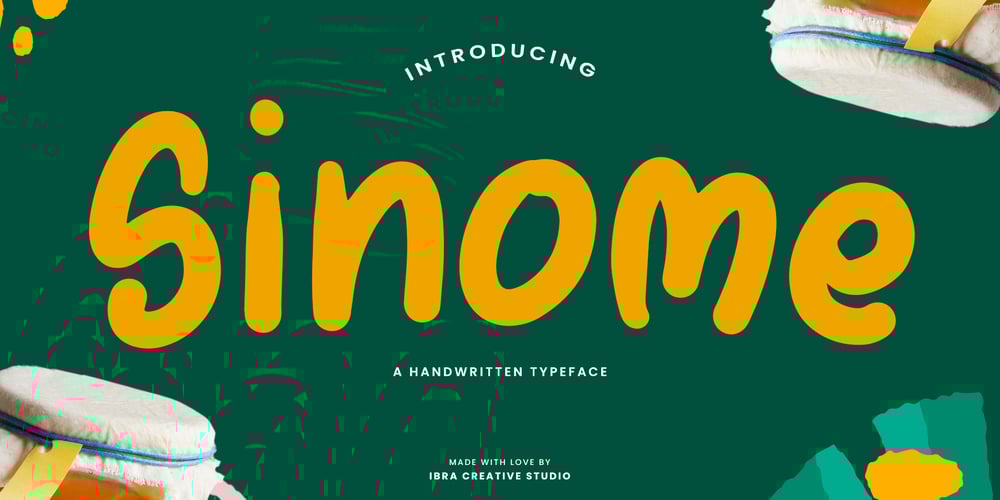
Sinome Font Family was designed by Roisatul Azizah and published by IbraCreative. Sinome contains 1 styles and family package options. Sinome – A Cute Handwritten TypefaceSinome, an enchanting handwritten typeface, radiates a delightful charm with its whimsical strokes and endearing curves. Crafted with a touch of innocence, each letter dances across the page, embodying a playful spirit that adds a dose of sweetness to any design. The cute, hand-drawn quality of Sinome captures the essence of childlike wonder and spontaneity, making it an ideal choice for projects that seek to evoke a sense of warmth, friendliness, and approachability. Whether adorning invitations, crafting adorable logos, or infusing a touch of whimsy into creative endeavors, Sinome stands as a testament to the joy found in the simplicity of handwritten expressions. Sinome is perfect for branding projects, logo, wedding designs, social media posts, advertisements, product packaging, product designs, label, photography, watermark, invitation, stationery, game, fashion and any projects.Fonts include multilingual support for; Afrikaans, Albanian, Czech, Danish, Dutch, English, Estonian, Finnish, French, German, Hungarian, Italian, Latvian, Lithuanian, Norwegian, Polish, Portuguese, Slovak, Slovenian, Spanish, Swedish.